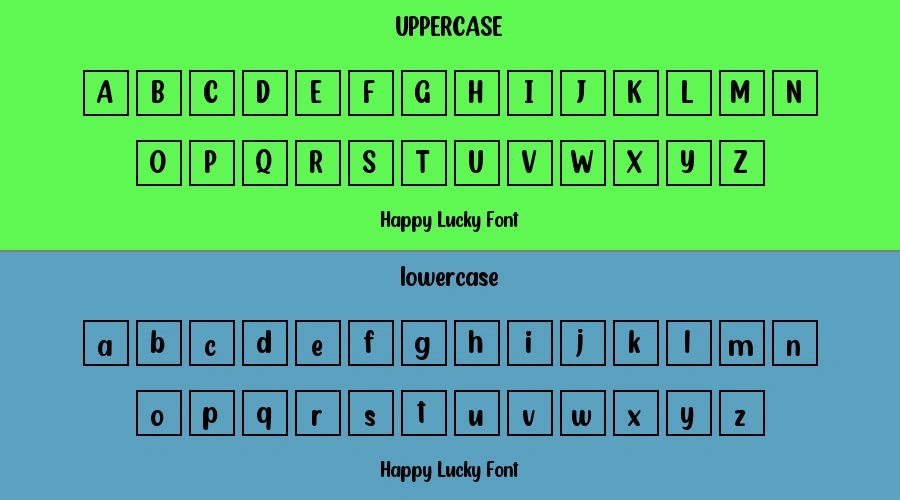
About Happy Lucky Font
Happy Lucky Font embodies typographic excellence through its masterful combination of decorative elements and classic beauty. Created for brand identities, this typeface delivers exceptional clarity and brand power across all applications. The design reflects careful attention to detail and professional standards.
Advanced capabilities include distinctive convex bowls and versatile careful spacing, giving designers creative control. When used in image captions, Happy Lucky Font exhibits remarkable distance readability. The harmonious balance between counter shape and cultural references sets this typeface apart.